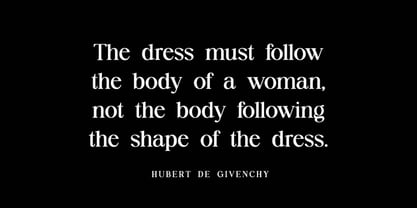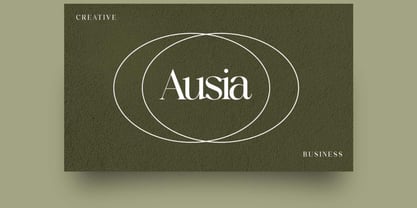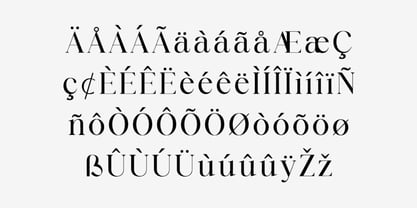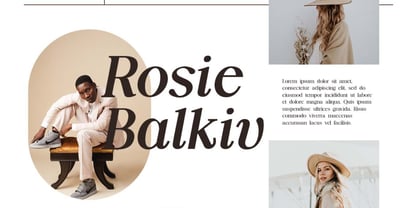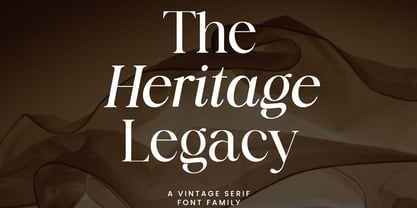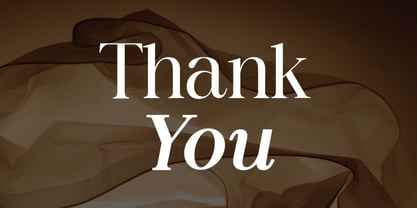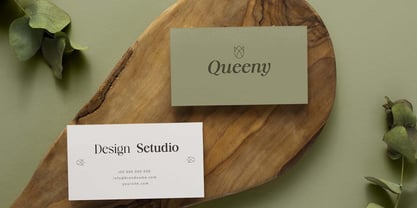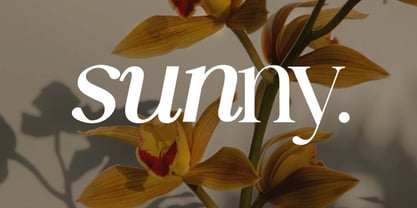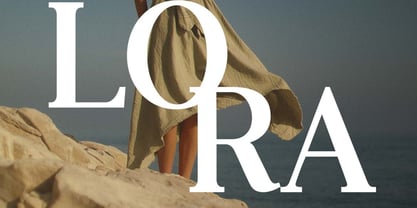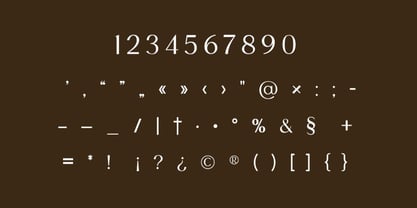
TheHeritageLegacy
by UICreative
The TheHeritageLegacy Font Family was designed by Hero and published by UICreative. TheHeritageLegacy contains 10 styles and family package options.
The Heritage Legacy Vintage Serif Family Font. The modern display font feels beautiful classy, elegant, and stylish. This font is ideally suited for a wide variety of projects, such as signature, stationery, logo, wedding, typography quotes, magazine or book covers, website headers, branding, and more. Also, fashion-related branding or editorial design displays both masculine and feminine qualities.